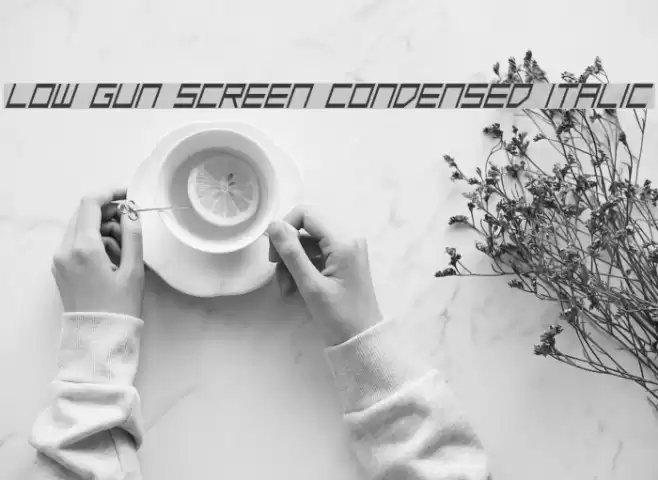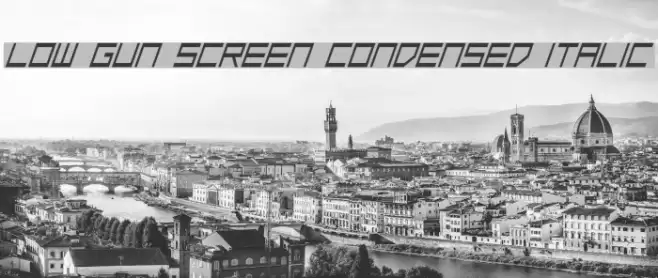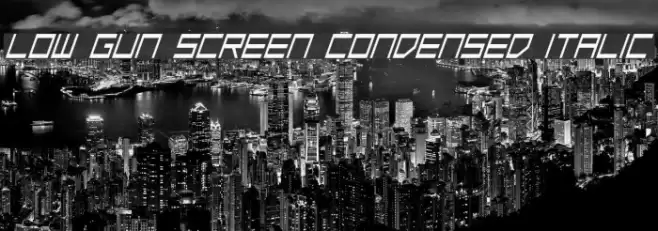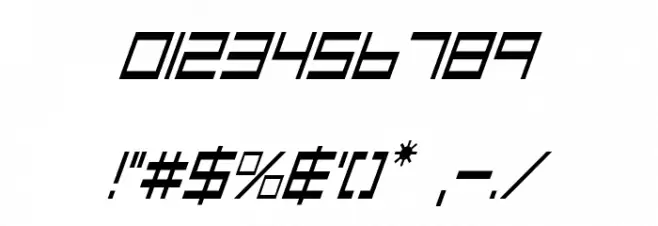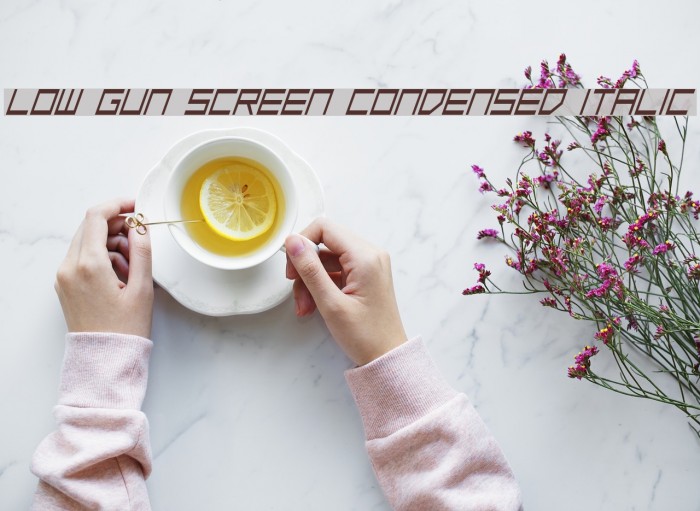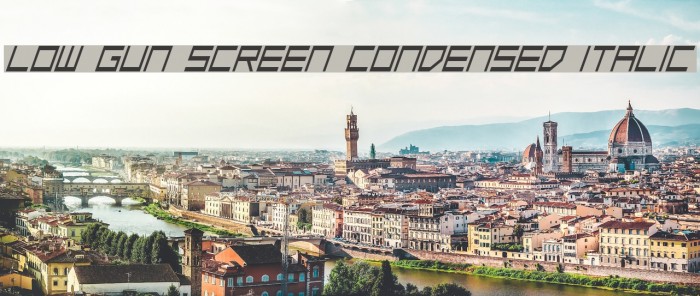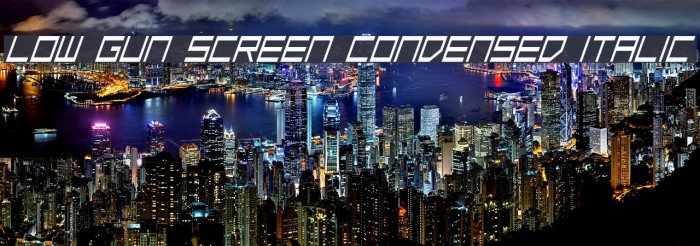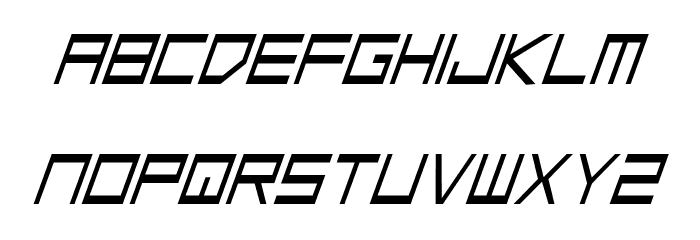
Low Gun Screen Condensed Italic Font
Low Gun Screen Condensed Italic Description
This font features a futuristic and angular design, characterized by its sharp edges and geometric shapes. The letters are slanted, giving an italicized appearance, and the condensed nature of the font makes it suitable for space-saving applications. The uppercase and lowercase letters maintain a consistent style, with a unique approach to certain characters like 'Q' and 'R', which have distinct, modern elements. The numerals and special characters follow the same angular and condensed style, ensuring uniformity across all glyphs. This font's bold and dynamic look makes it ideal for projects that require a modern and tech-savvy aesthetic.
A futuristic, angular, and condensed italic font with a bold, modern style from Uncategorized fonts.
- Proposed Projects: Ideal for technology branding, sci-fi themed designs, video game interfaces, and modern advertising.